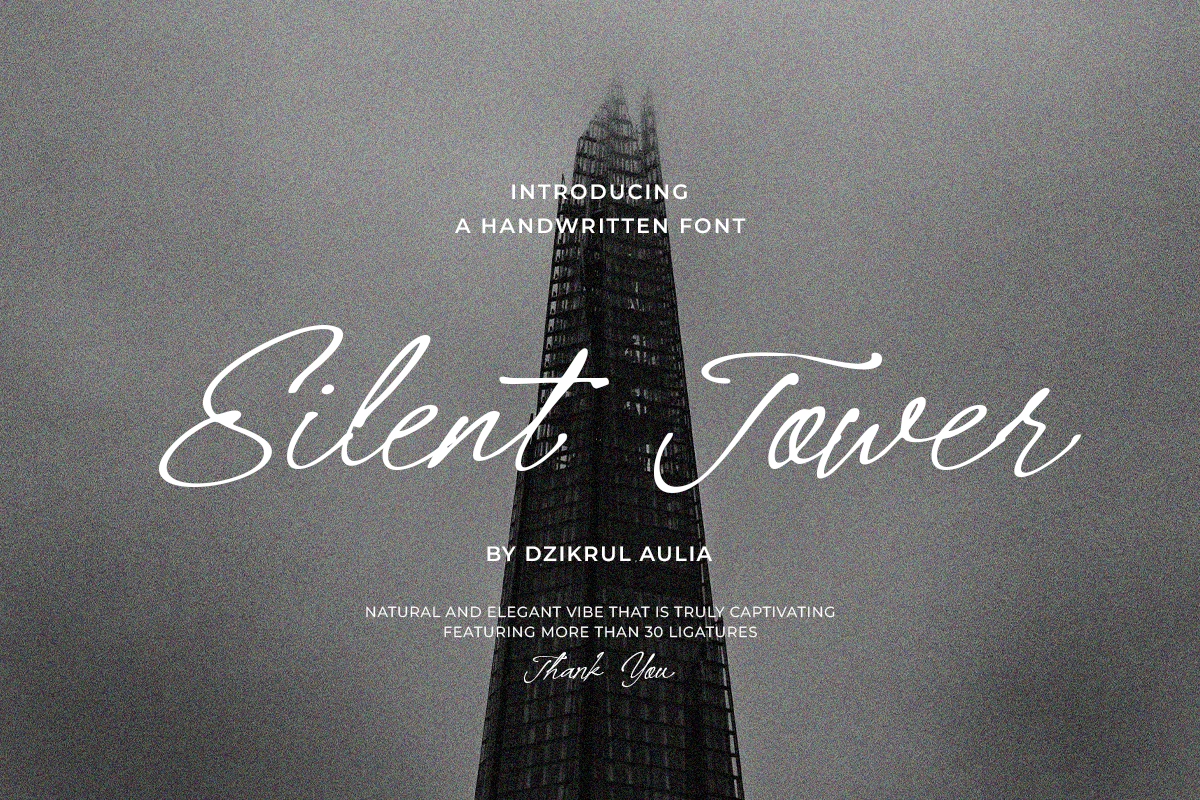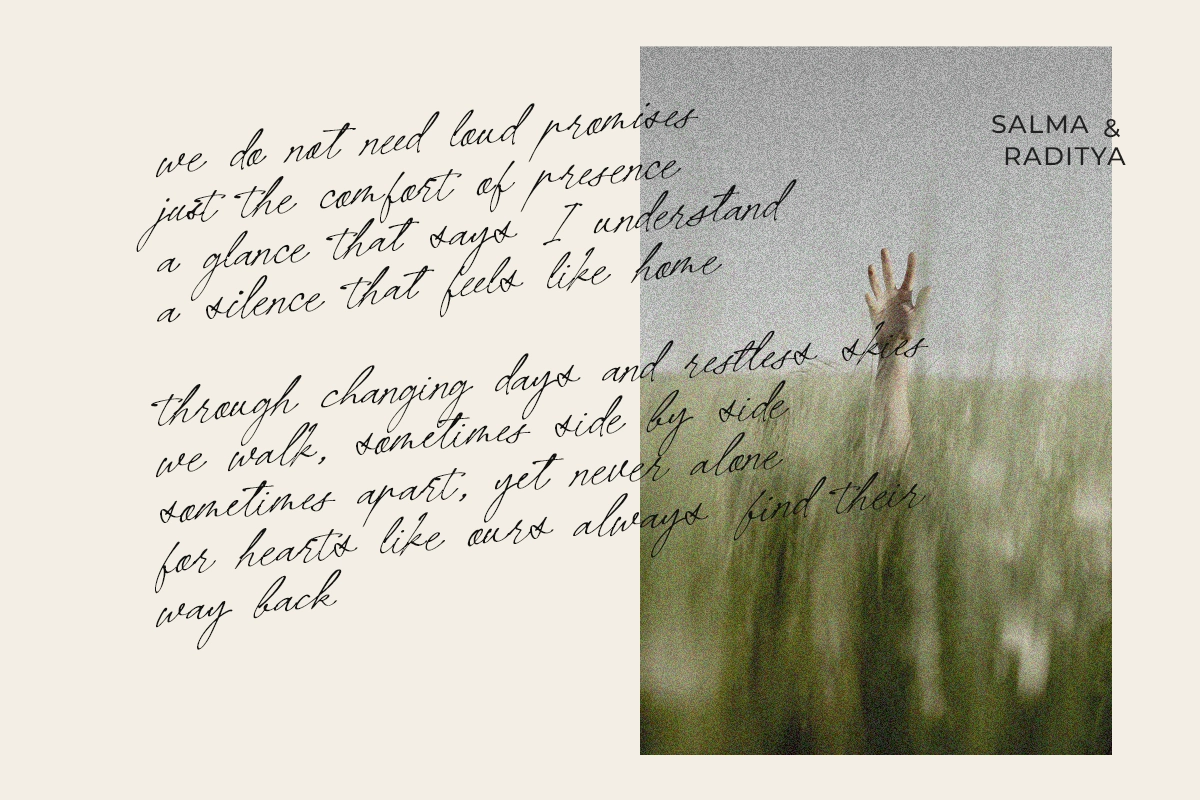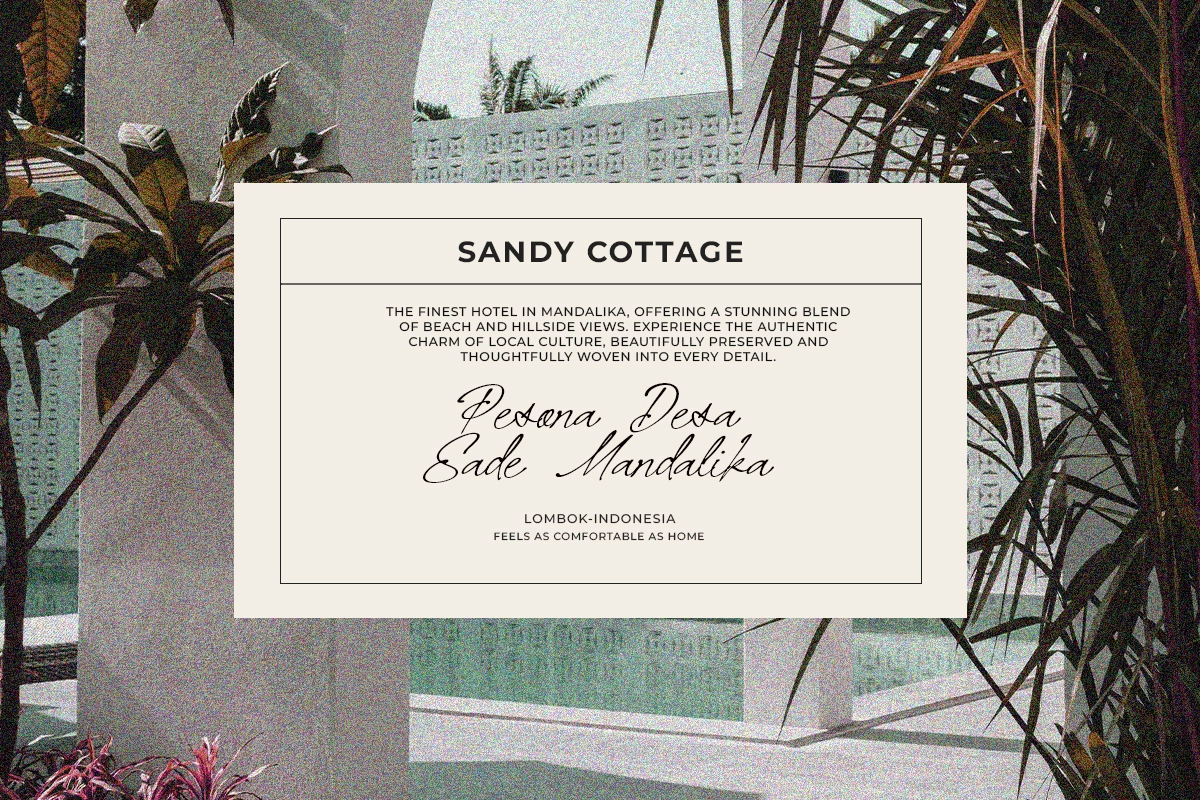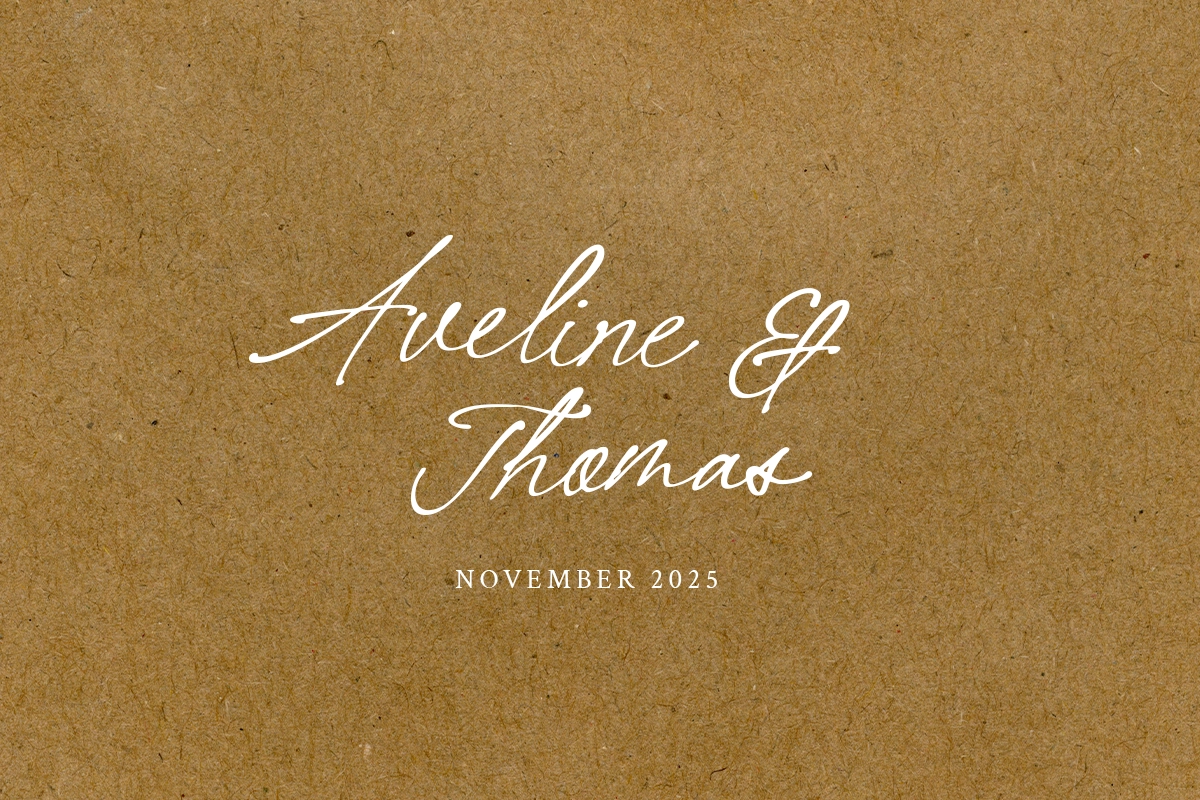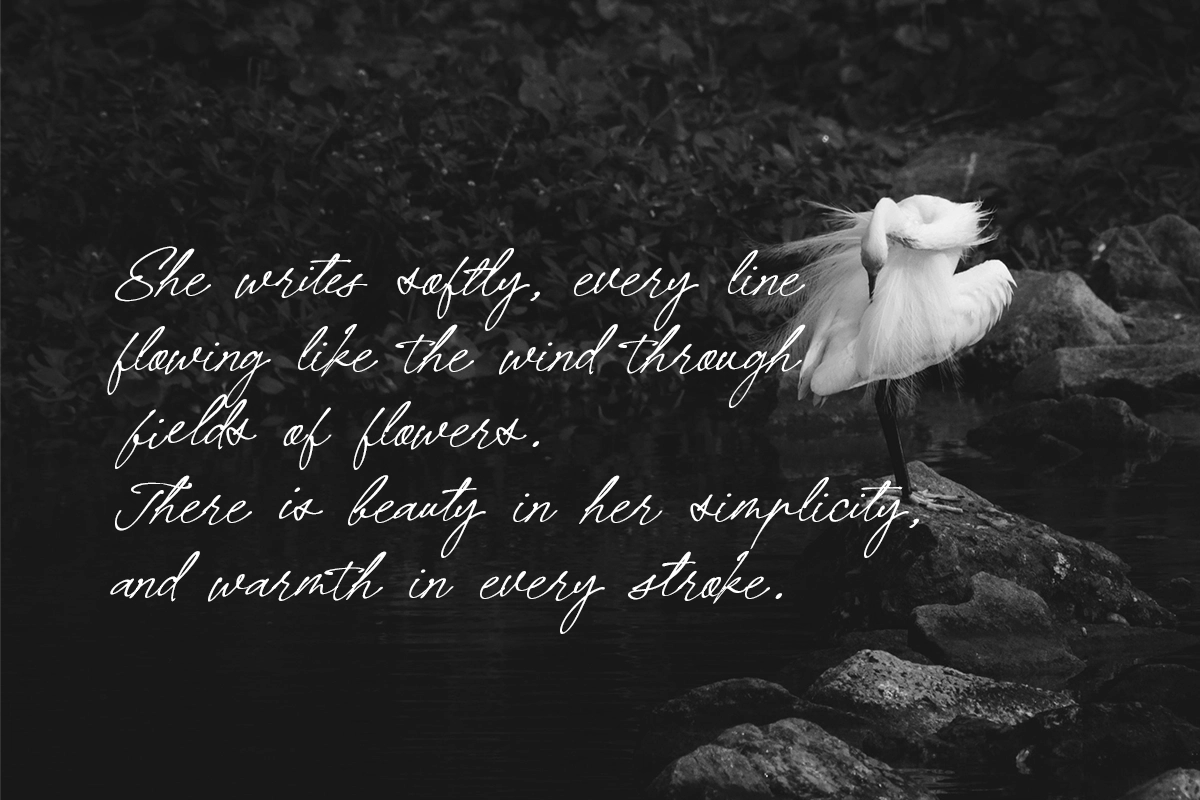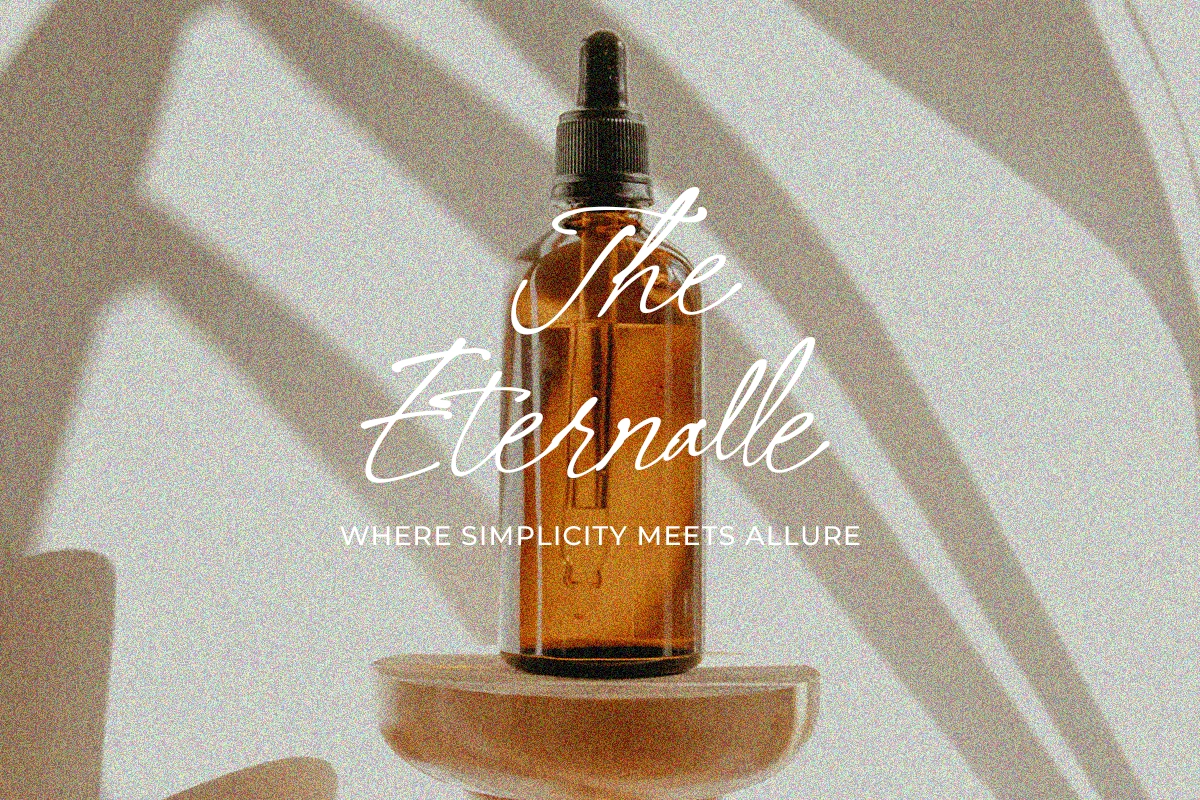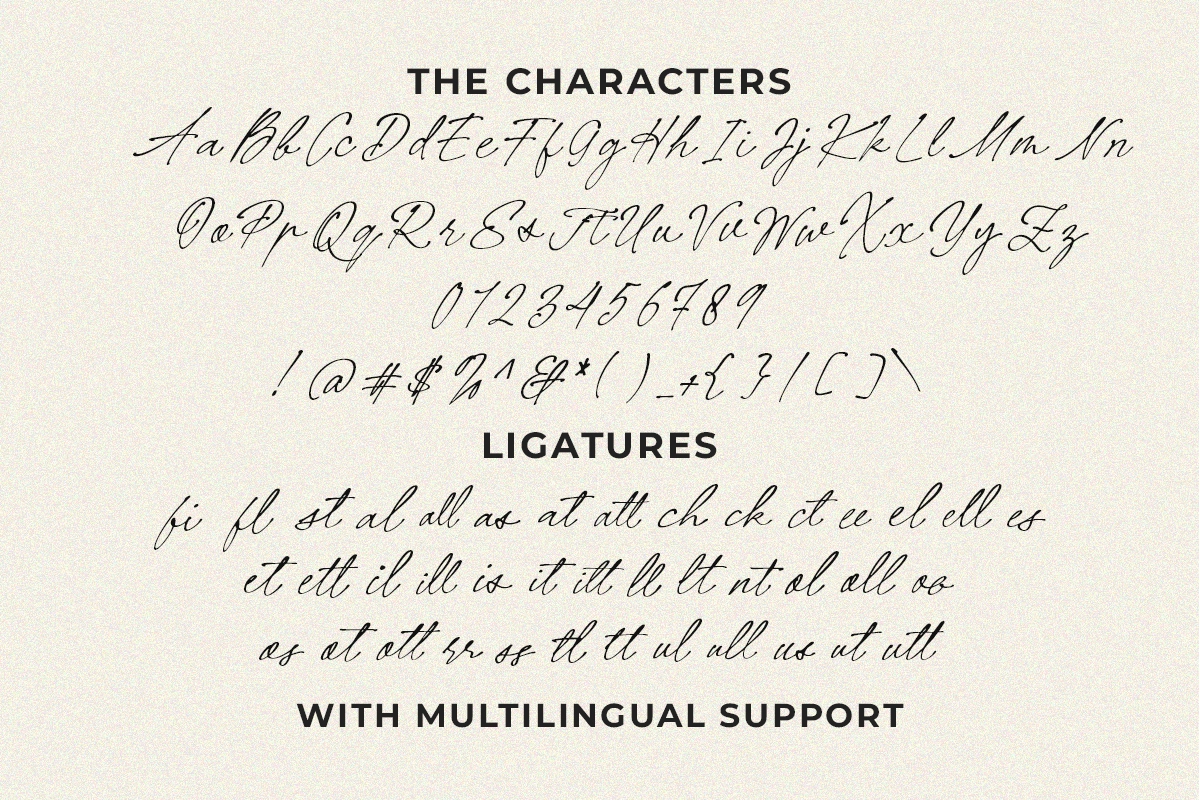
Silent Tower Font
Silent Tower
Silent Tower is a sweeping, airy signature script with long ascenders and poised loops, recalling mid-century film title cards and Parisian atelier stationery. Use it for wedding invitations, boutique branding, book covers, fashion lookbooks, café menus, album artwork, and hero headlines on landing pages.
- uppercases, lowercases, numbers, symbols, and punctuation;
- multilingual support;
- ligatures.